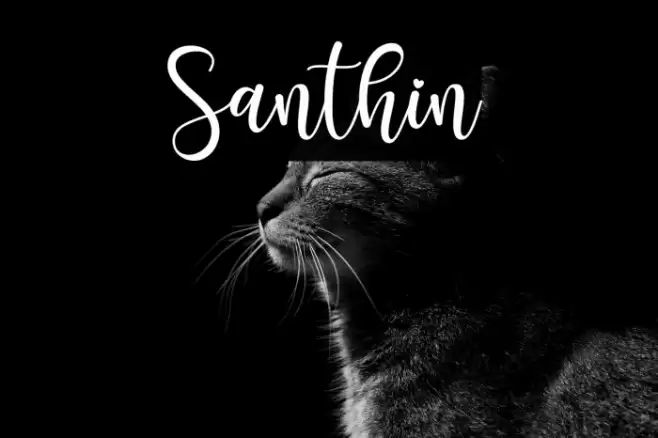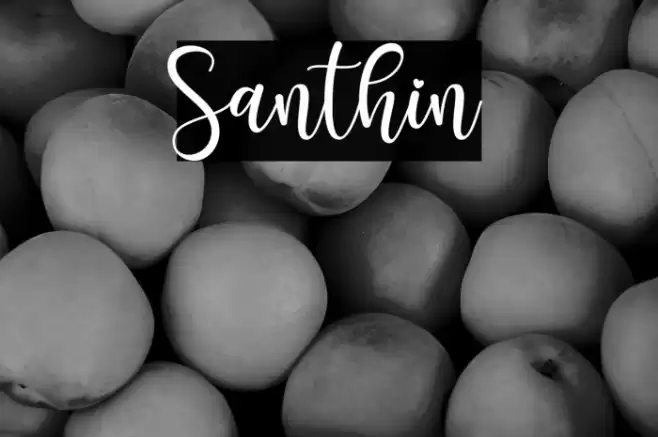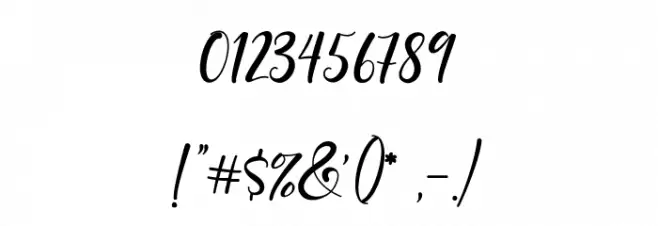
Santhin Font
Santhin Description
This font features a flowing, cursive style with elegant loops and swashes, giving it a handwritten appearance. The uppercase letters are tall and slender, with a graceful flair that adds a touch of sophistication. The lowercase letters maintain a consistent flow, connecting smoothly to create a seamless script. Numbers and special characters are designed with the same fluidity, ensuring a cohesive look across all text. The overall design is both stylish and legible, making it suitable for a variety of creative applications.
A flowing, cursive script font with elegant loops and swashes from Regular fonts.